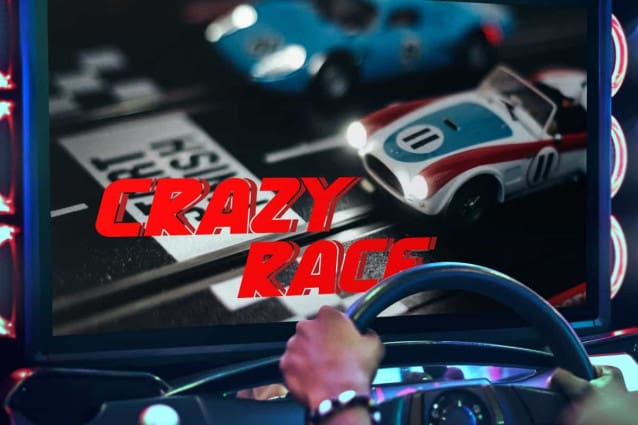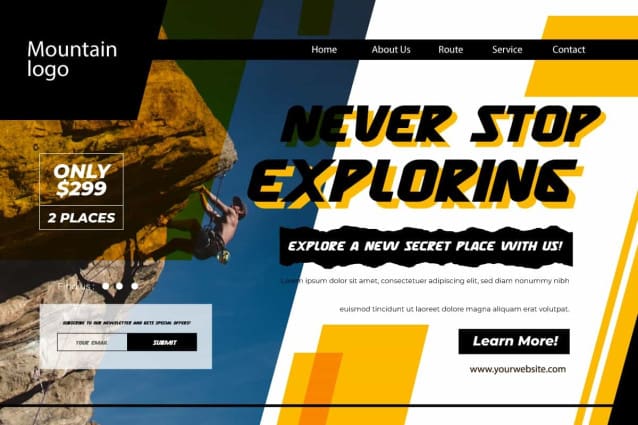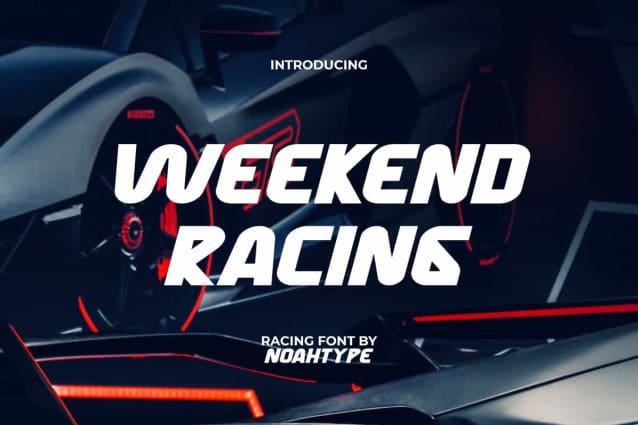
Weekend Racing Font
Weekend Racing Font is a strong yet playful display font with racing theme. The thick lines with unique shapes make the appearance of the letters very attractive and attract people’s attention. It would be good for any industries, such as automotive, coffee shop, fashion, game, graphic design, movie, photography, racing, sports, etc.
Weekend Racing Font includes a complete set of ALL CAPS for both Uppercase and Lowercase Basic Characters, Numerals, Punctuation, and Symbol. We designed it specifically inspired by racing and game sports. This font is perfect for adding punch to your projects without losing readability. It’s a perfect choice for any of your design projects, such as blog, header, label, poster, product packaging, screen printing design, marketing material, title, website and more!